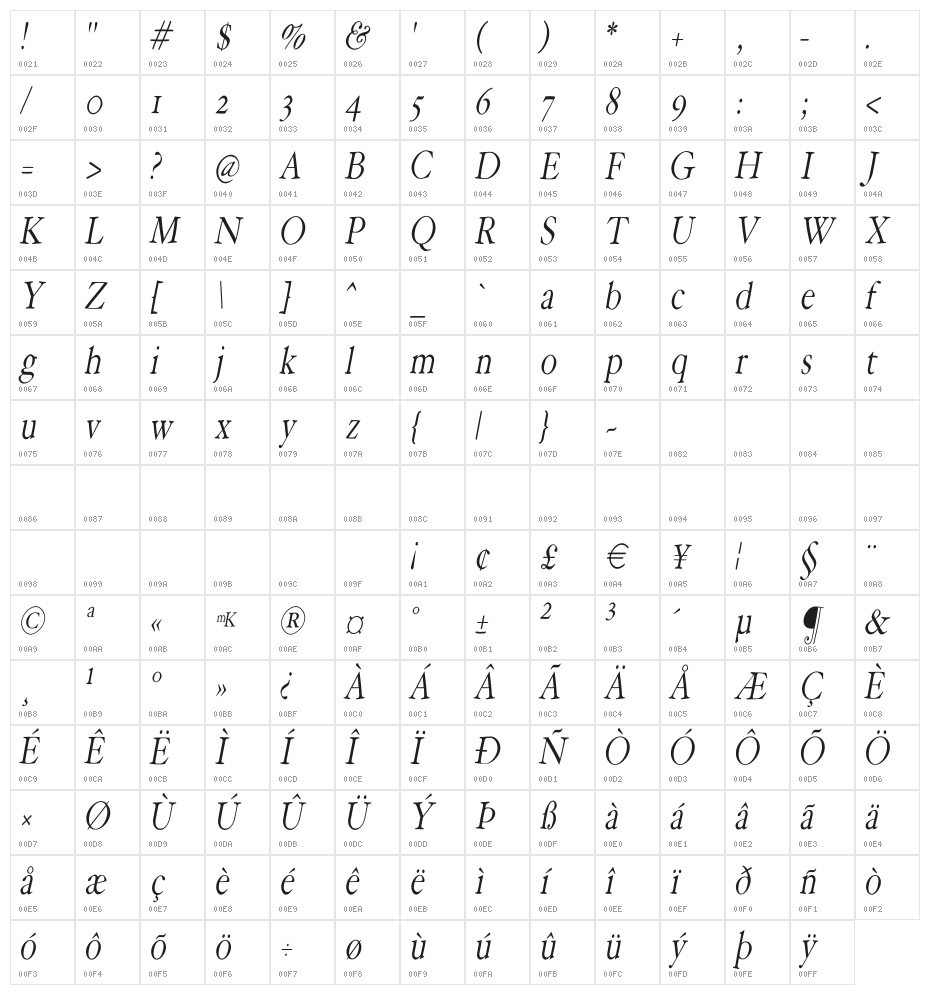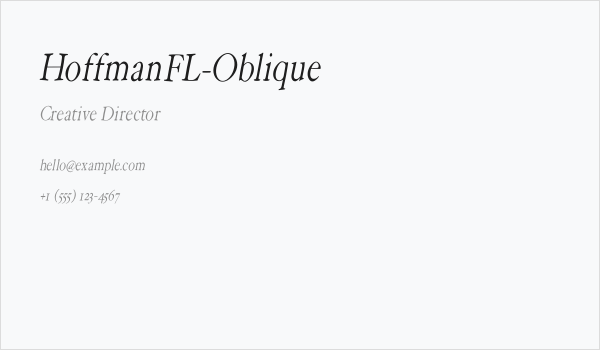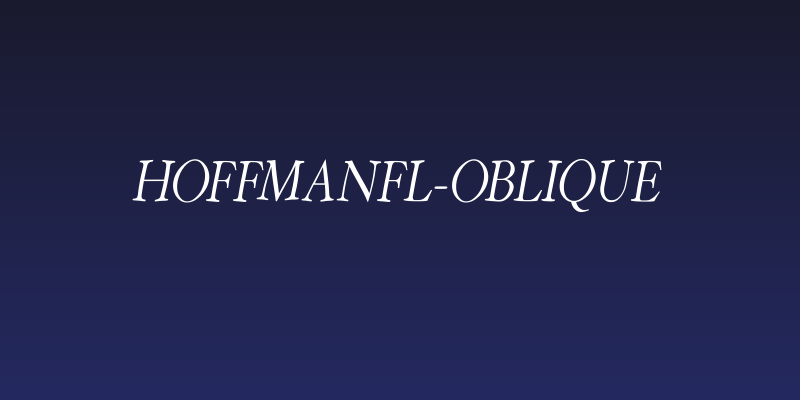
HoffmanFL-Oblique Font
HoffmanFL-Oblique Description
This font features a classic serif style with an elegant oblique slant, giving it a sophisticated and dynamic appearance. The characters are well-defined with sharp serifs and a moderate stroke contrast, enhancing readability while maintaining a stylish look. The uppercase letters are tall and commanding, while the lowercase letters are slightly more rounded, providing a balanced and harmonious feel. The numerals are distinct and easy to read, and the special characters are designed to complement the overall aesthetic. This font is versatile, suitable for both formal and creative applications.